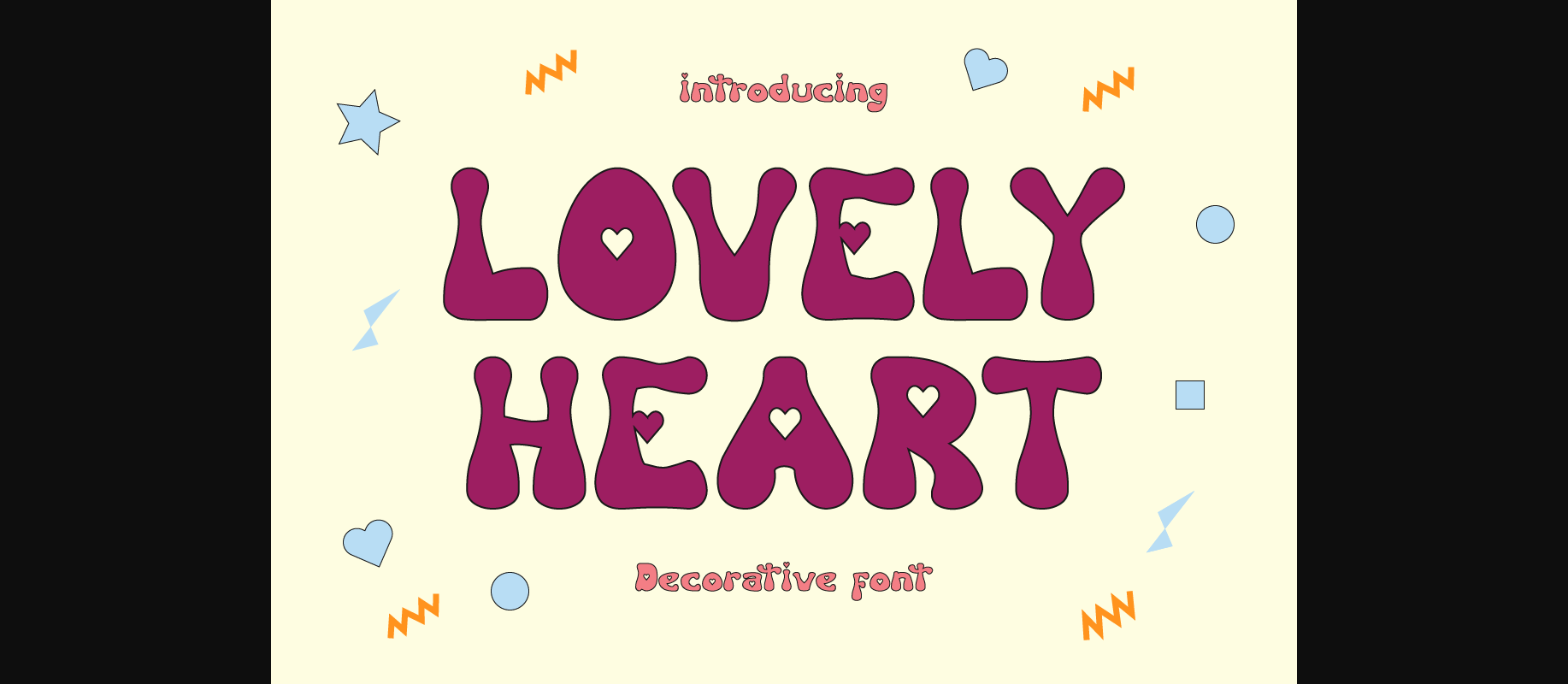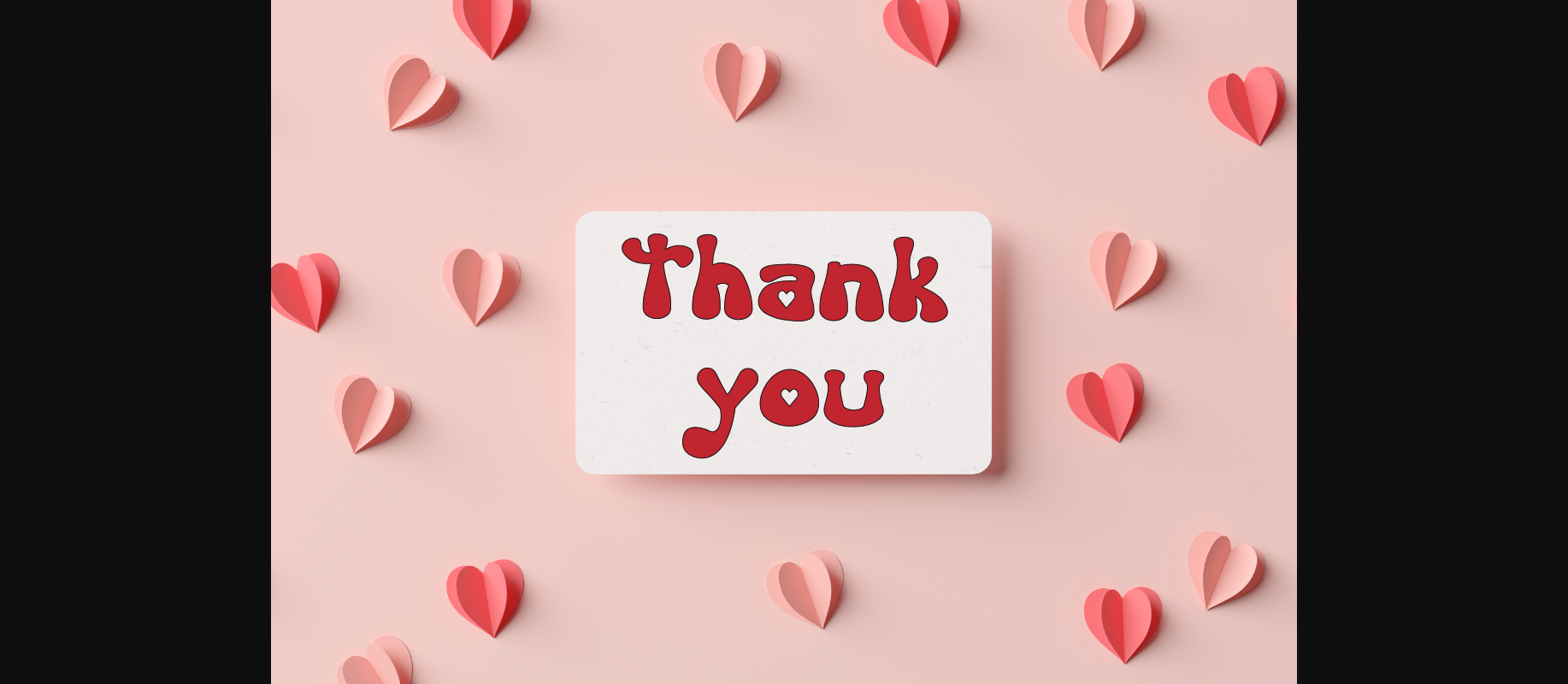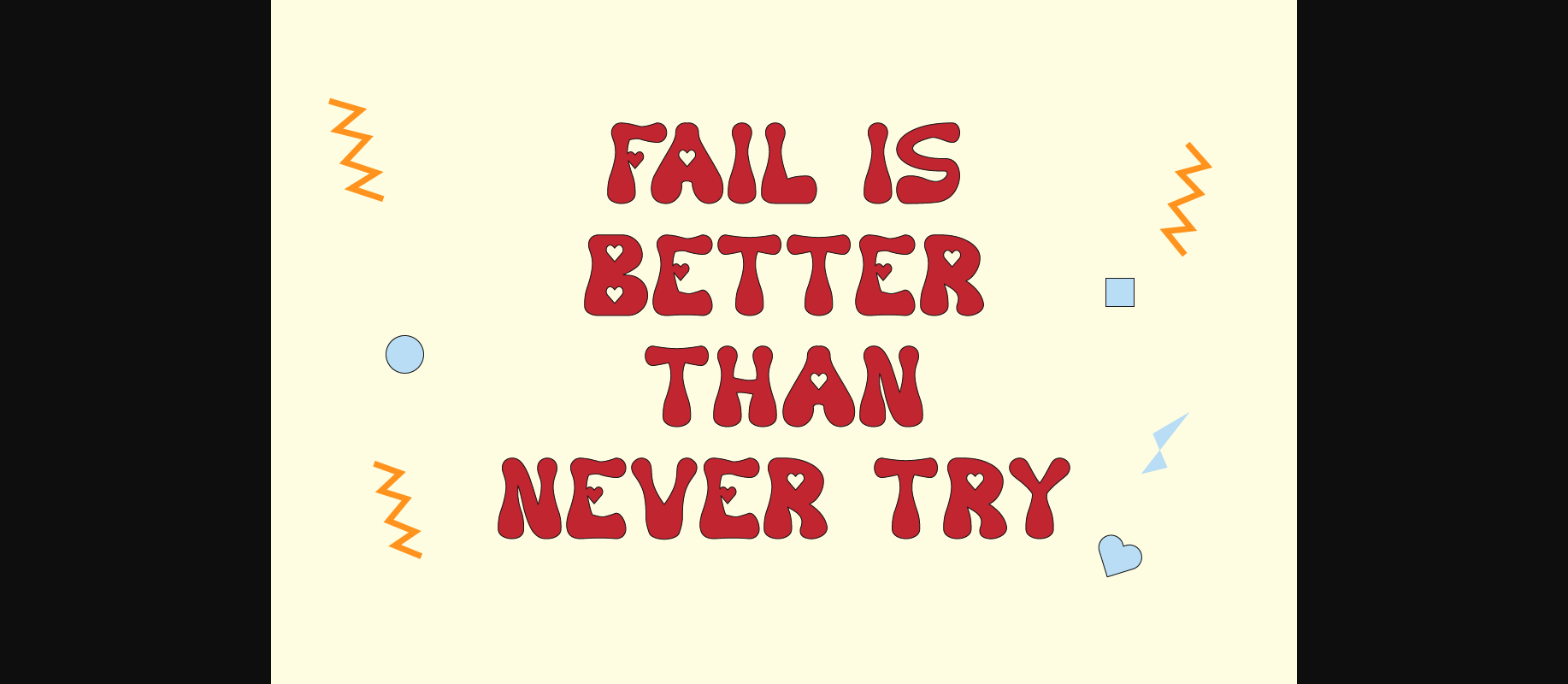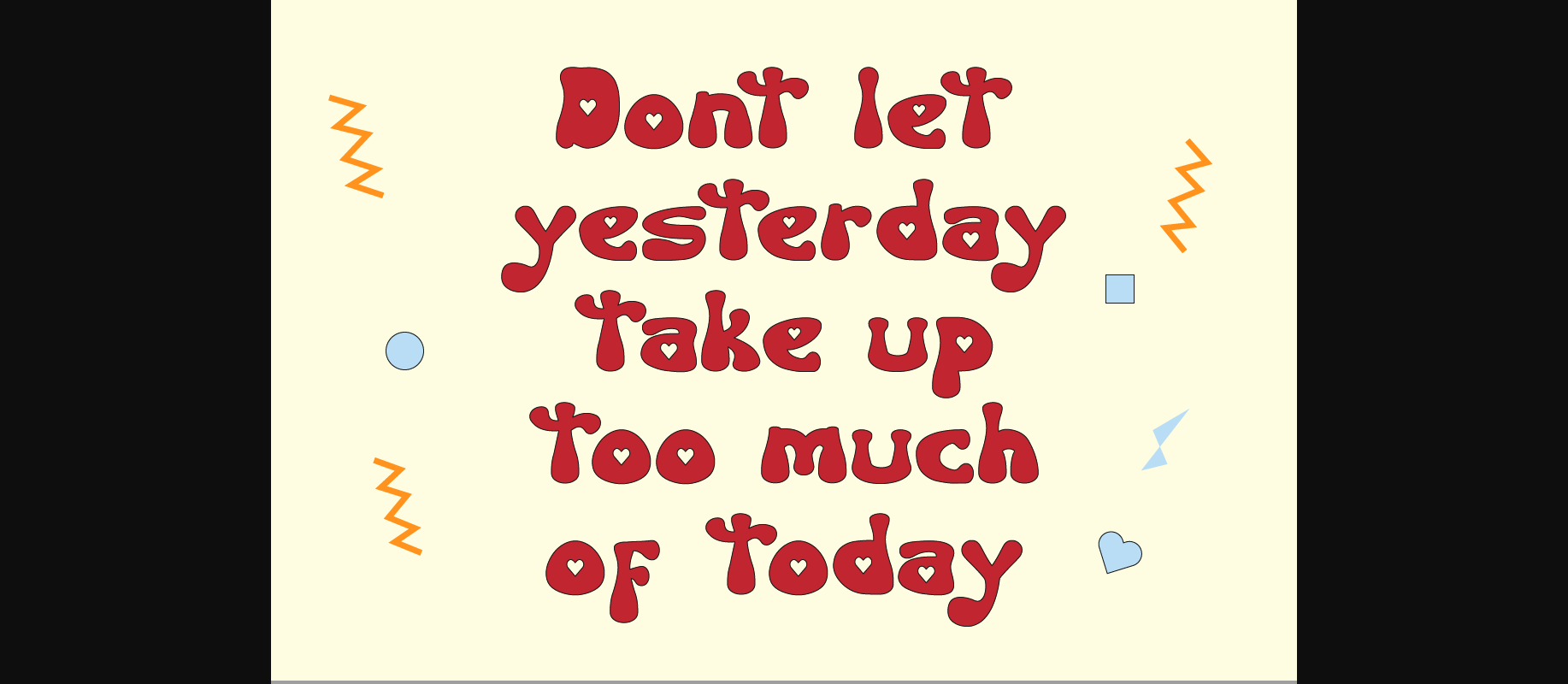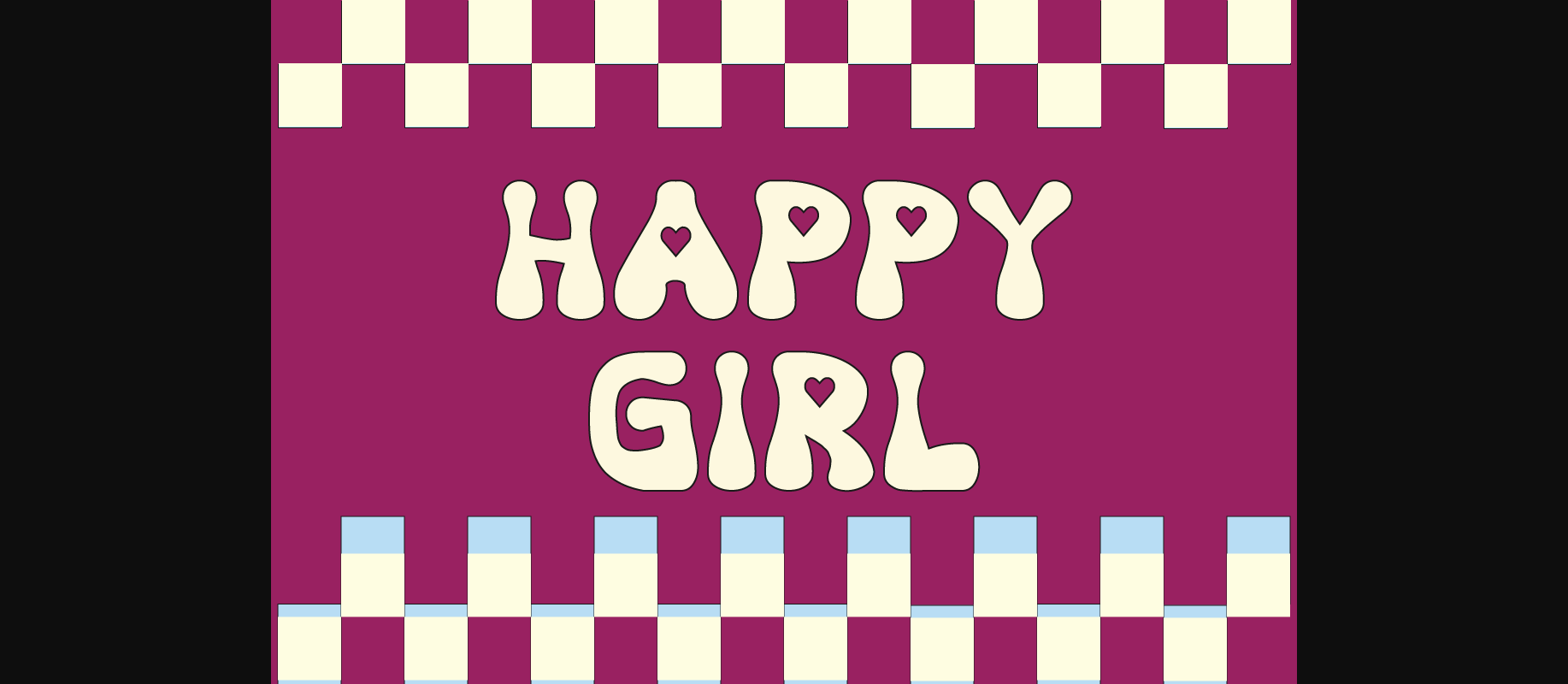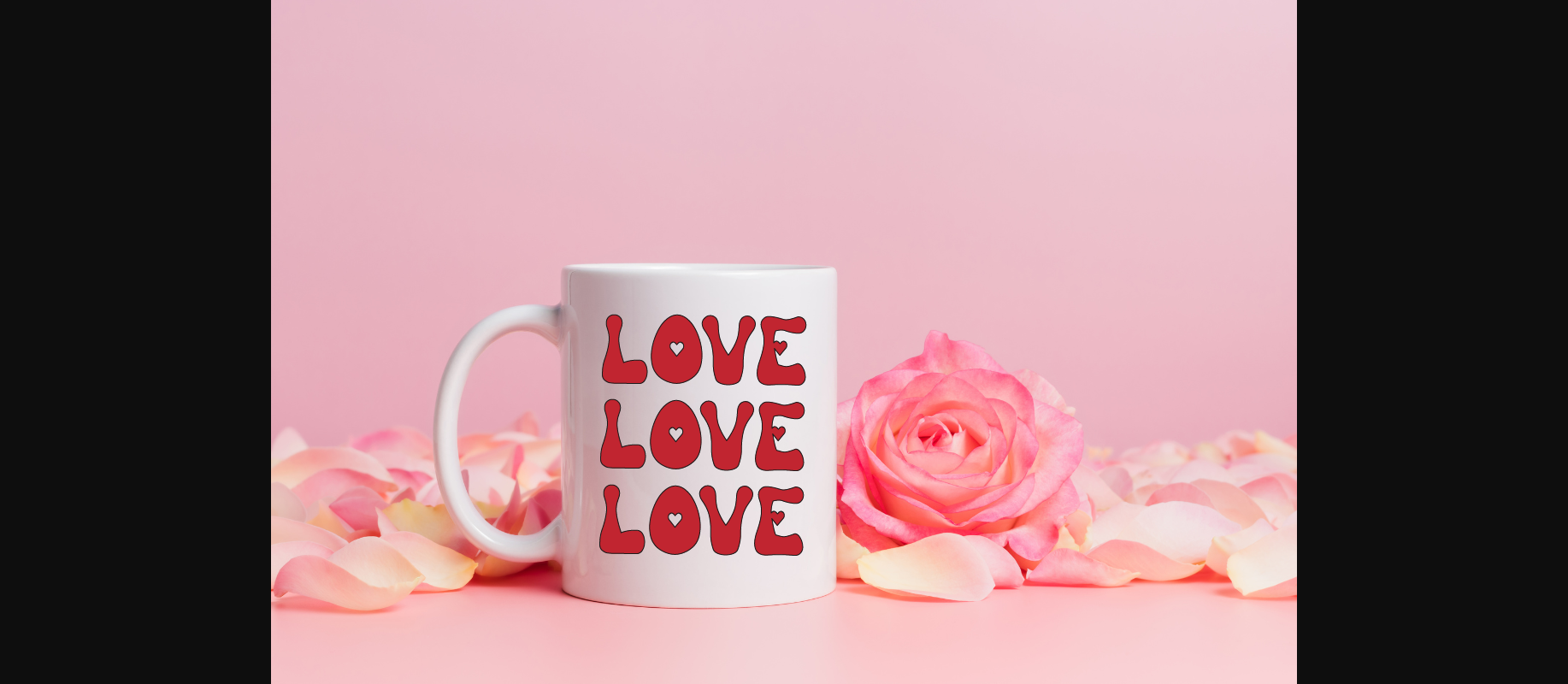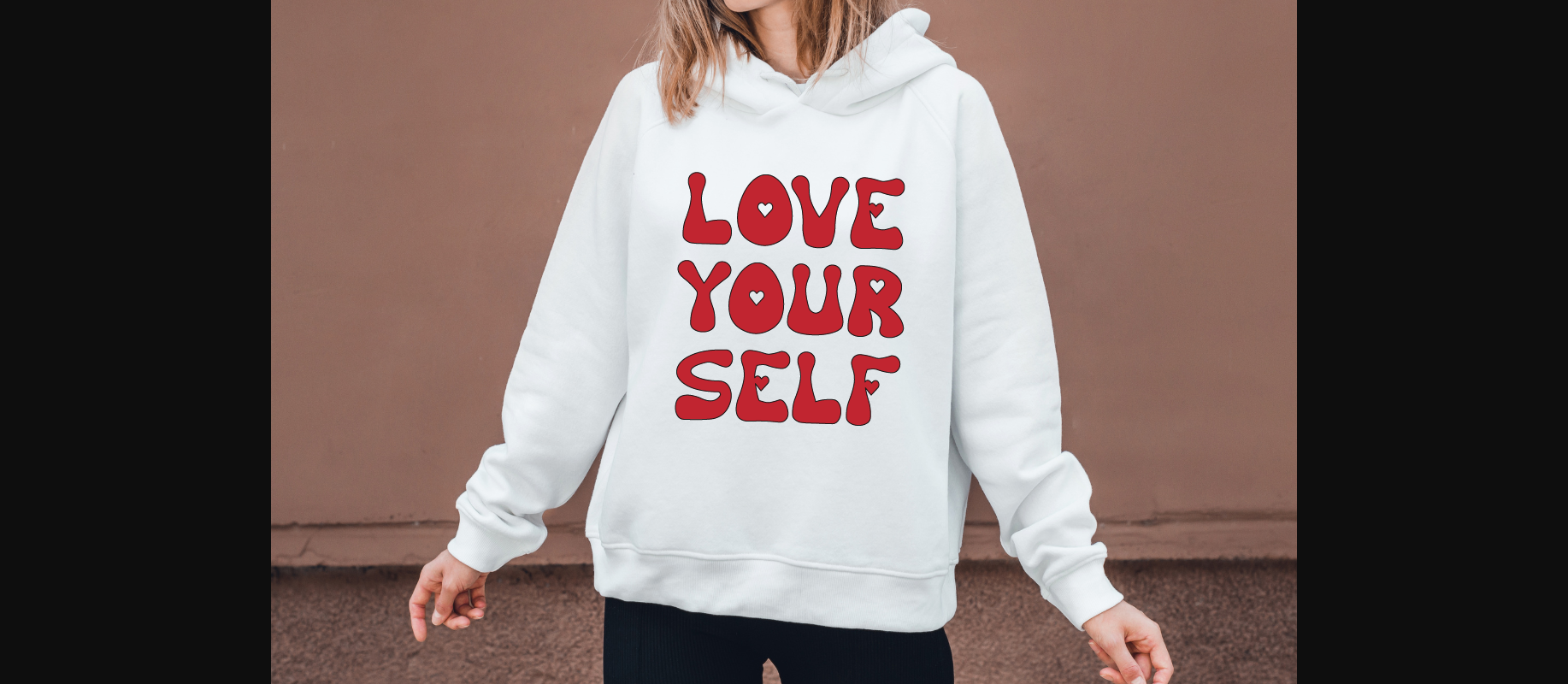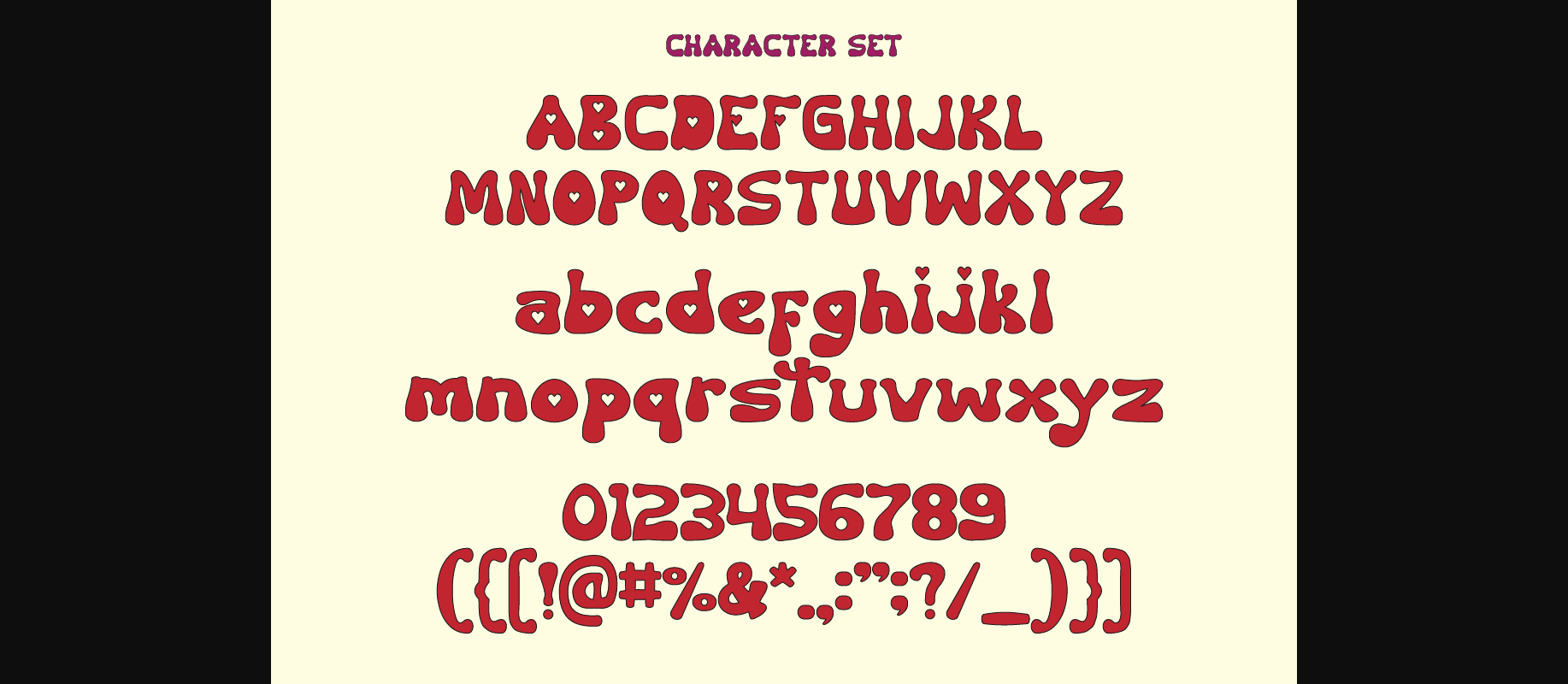
Lovely Heart Font
About Lovely Heart Font
Lovely Heart is a heart decorative font with a groovy and retro style. It is suitable for use in various t-shirt craft projects, hoodies, mugs, quotes, pillows, cards and so much more.